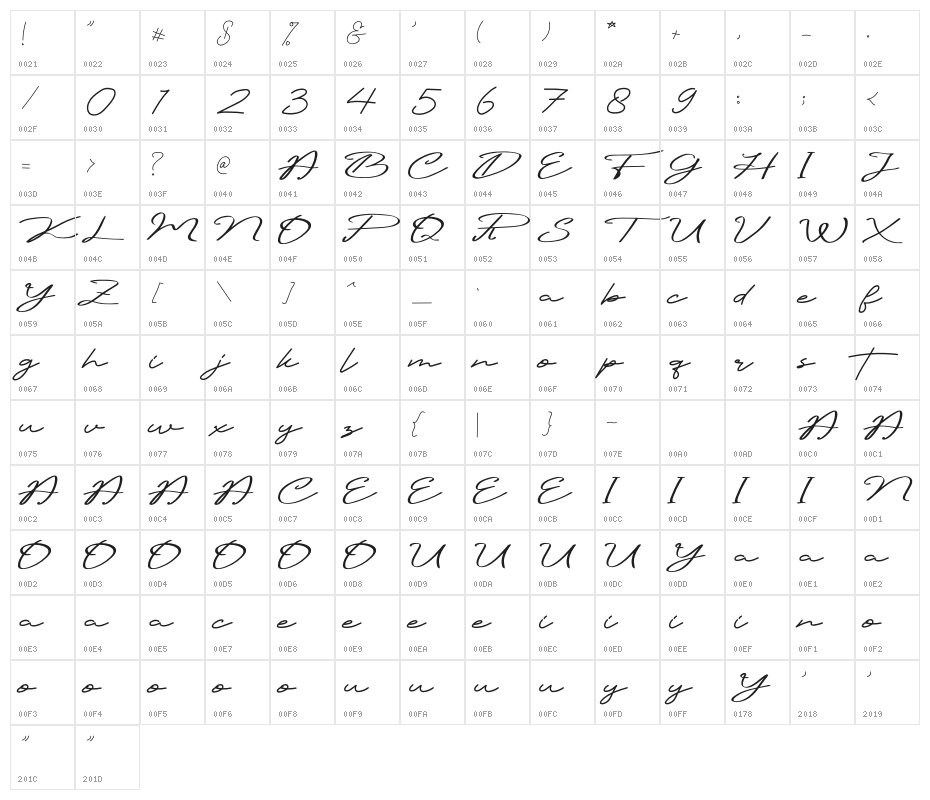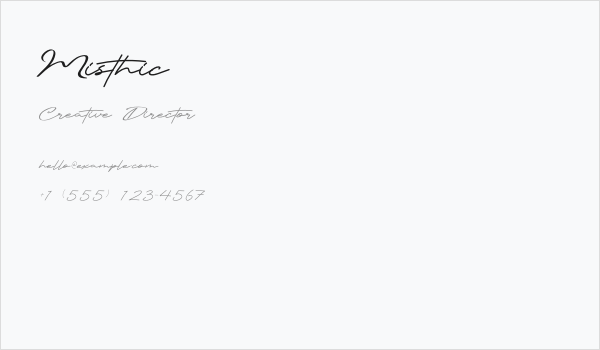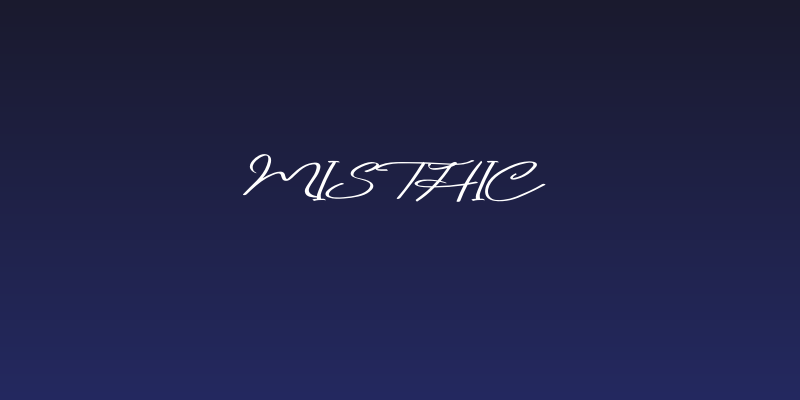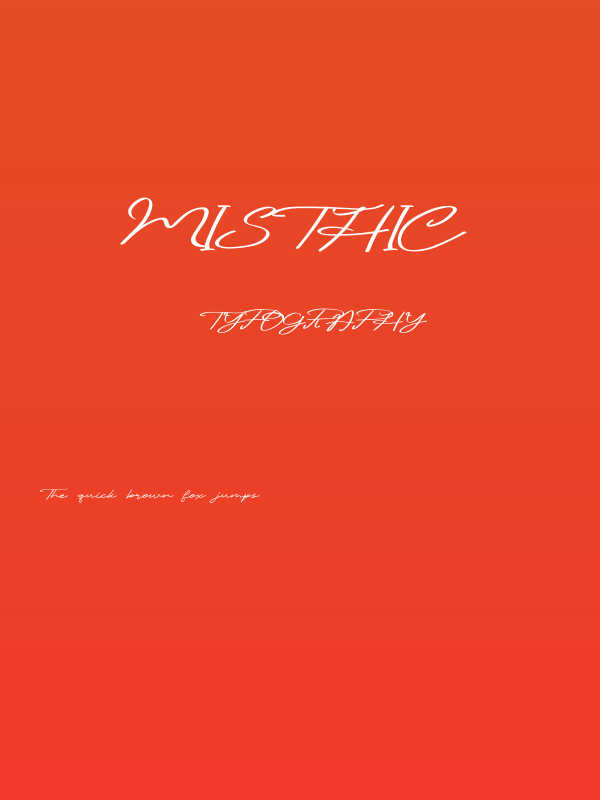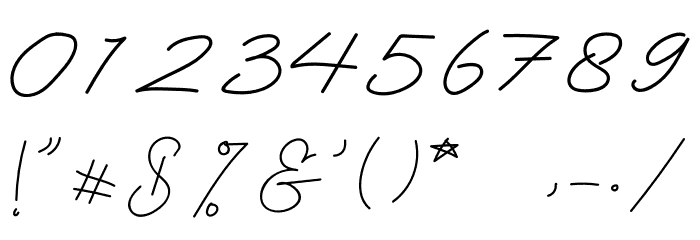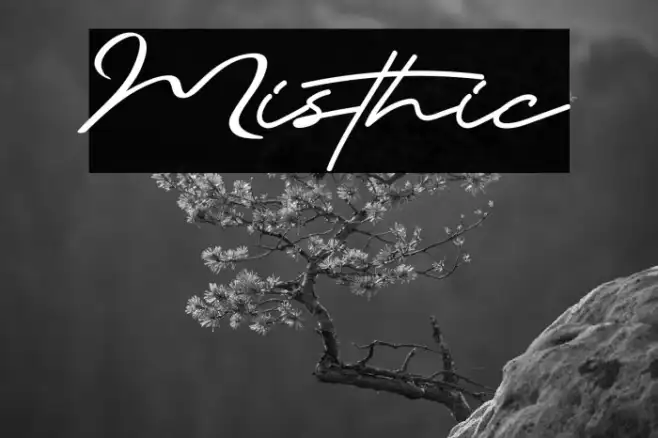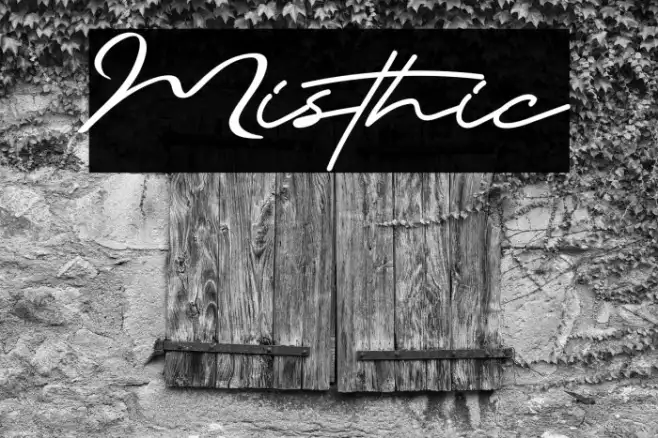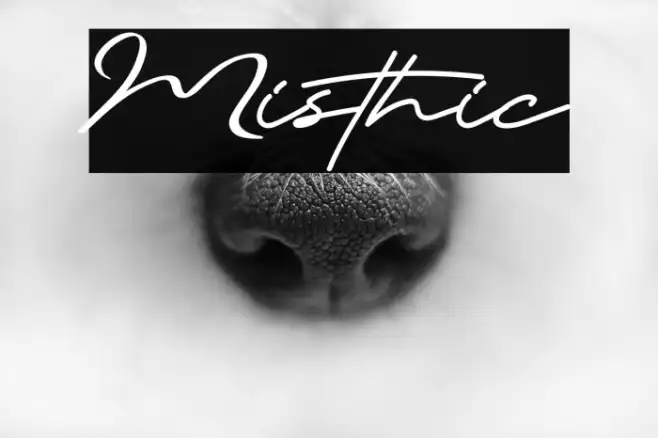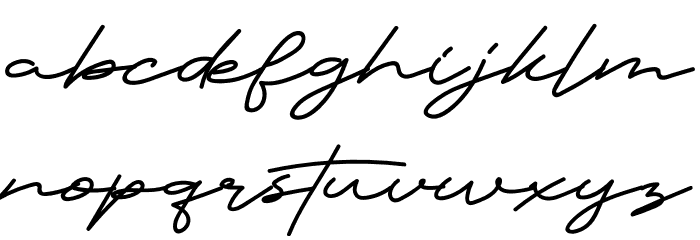
Misthic Font
Misthic Description
This elegant script font features fluid, interconnected strokes that mimic the natural flow of handwriting. The uppercase letters are stylishly elongated with graceful loops and curves, while the lowercase letters maintain a consistent rhythm and smoothness. The numerals are distinct yet harmonize well with the overall script style. Special characters are thoughtfully designed to complement the alphabet, adding a touch of sophistication. This font exudes a sense of elegance and personal touch, making it ideal for projects that require a handwritten aesthetic.
| Proposed Projects | Ideal for wedding invitations, greeting cards, personal branding, and elegant packaging designs. |